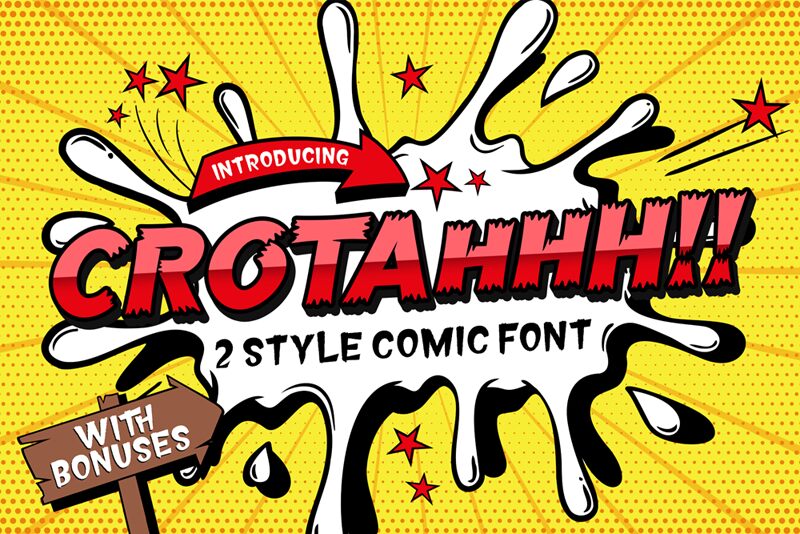
Crotah Italic, from the playful Crotah family, is a bold display font crafted by Alit Design with a whimsical twist. Inspired by the lighthearted lettering found in comic books, this typeface boasts relaxed brush stroke terminations that imbue each character with a unique and casual flair.
Perfect for injecting humor and levity into your creative endeavors, Crotah Italic shines across various applications-from spirited children's designs and eye-catching book headers to the dynamic dialogue bubbles of comic strips.
Embrace its distinctive style to elevate projects that call for a touch of fun without compromising on bold visual impact.